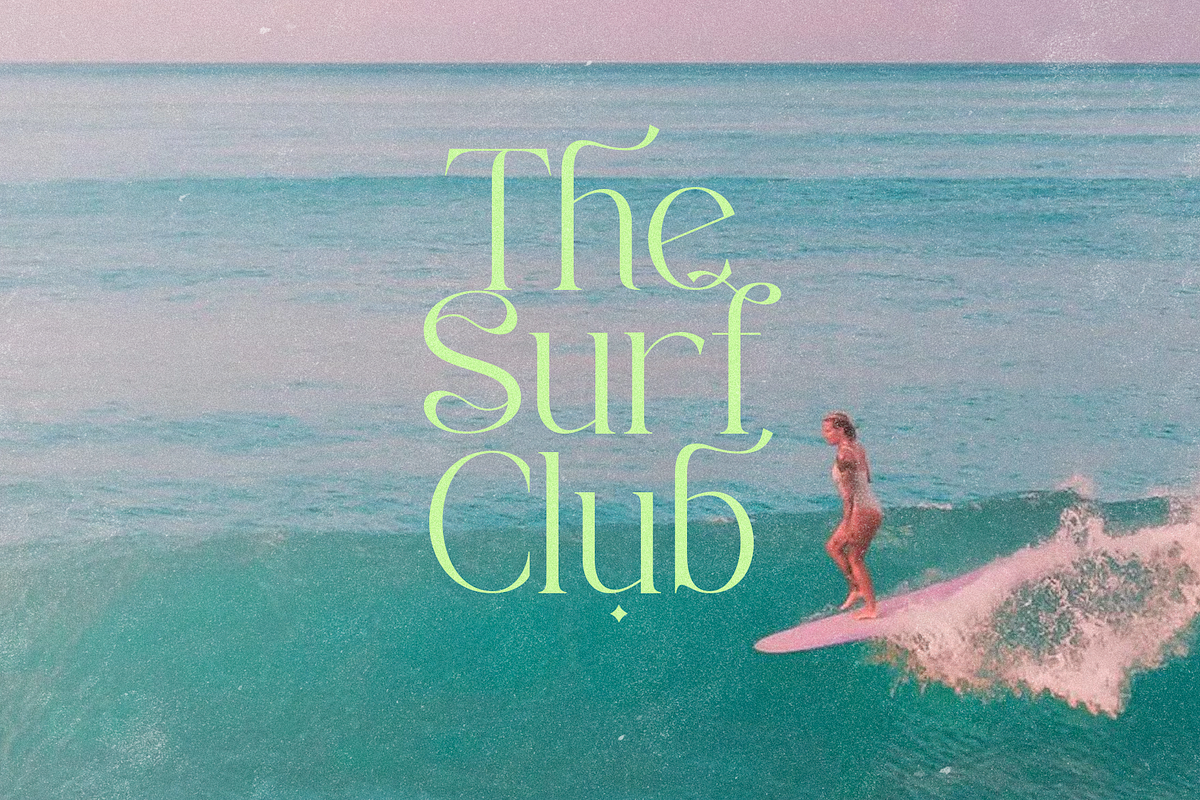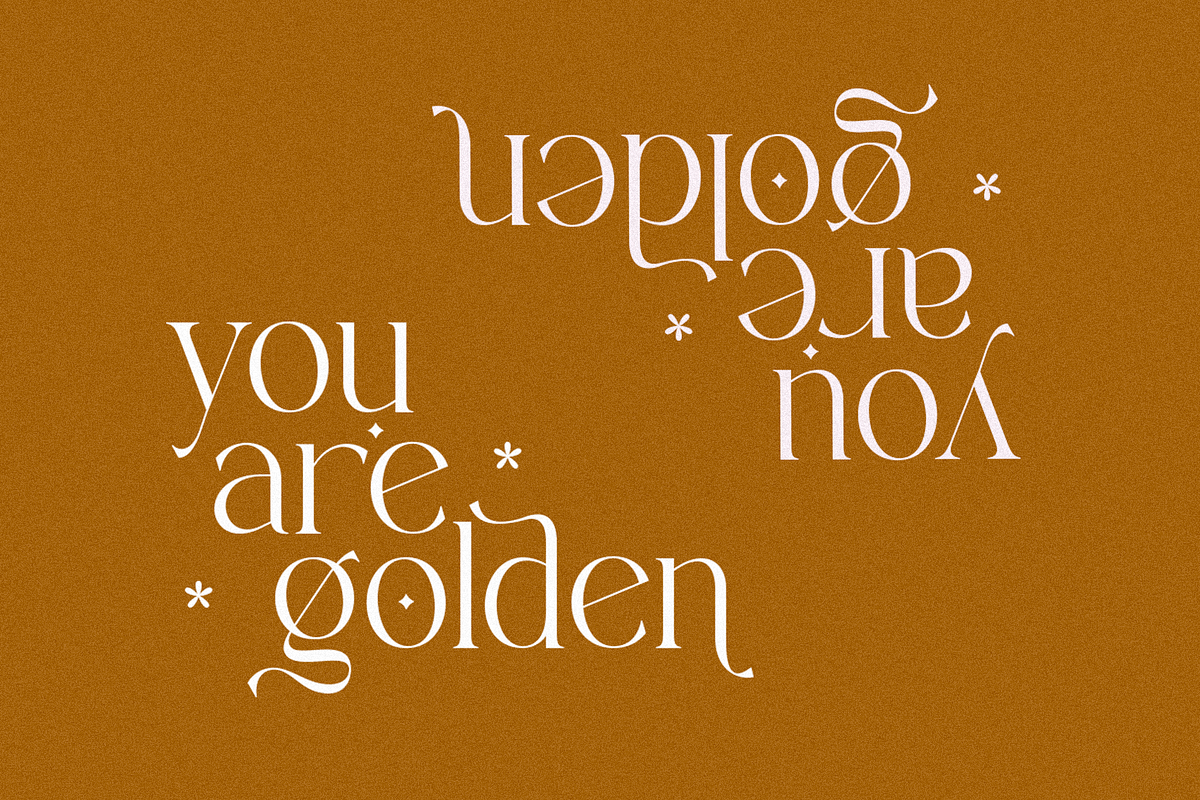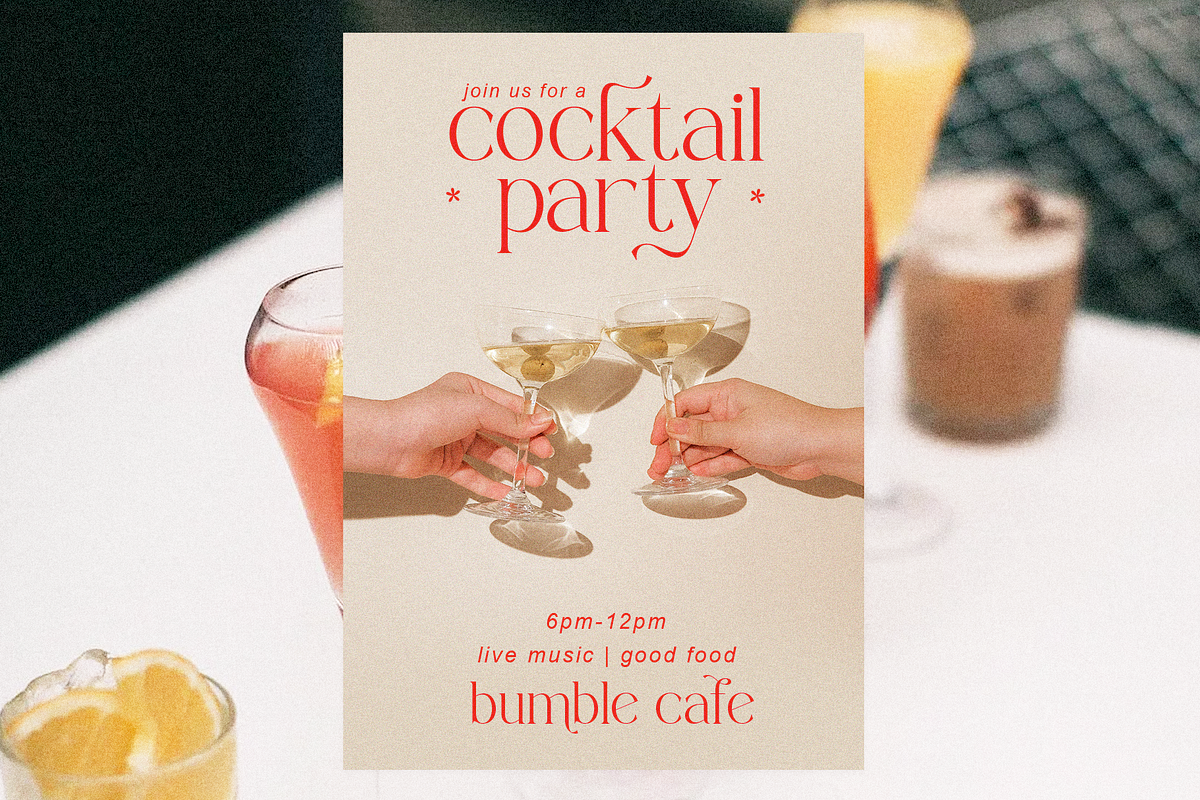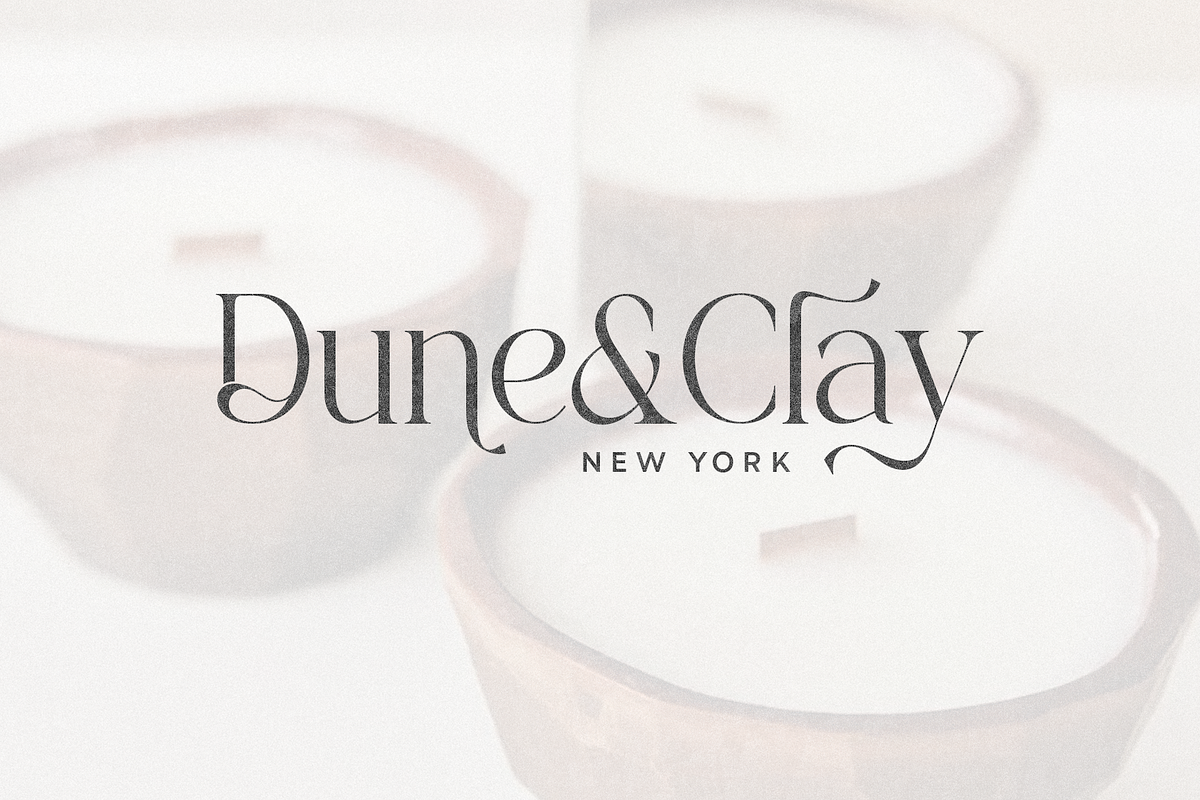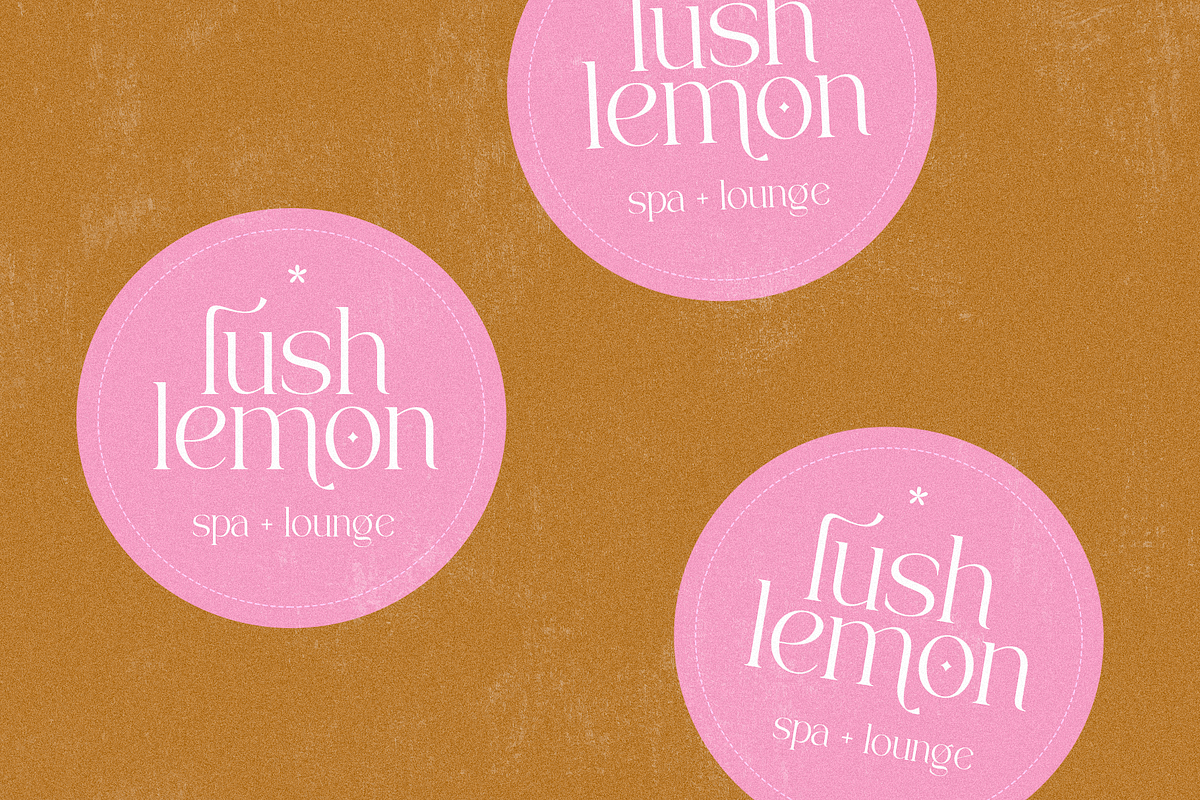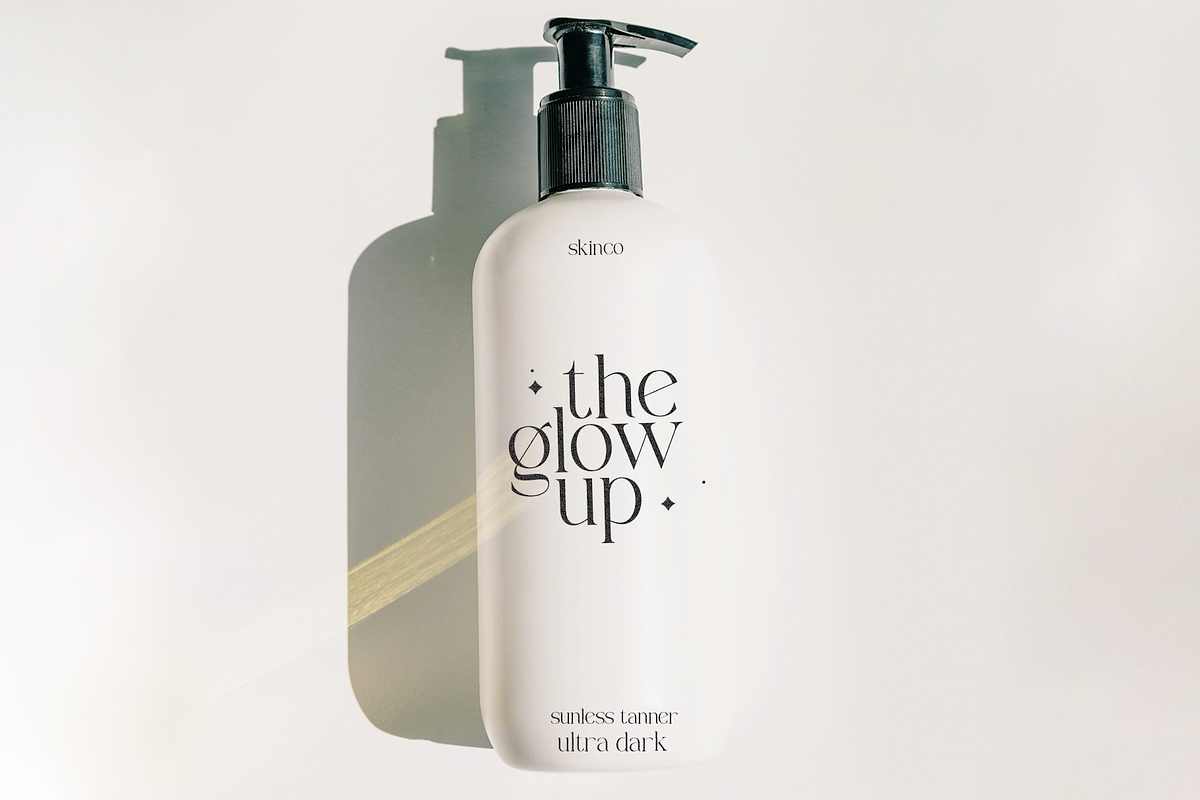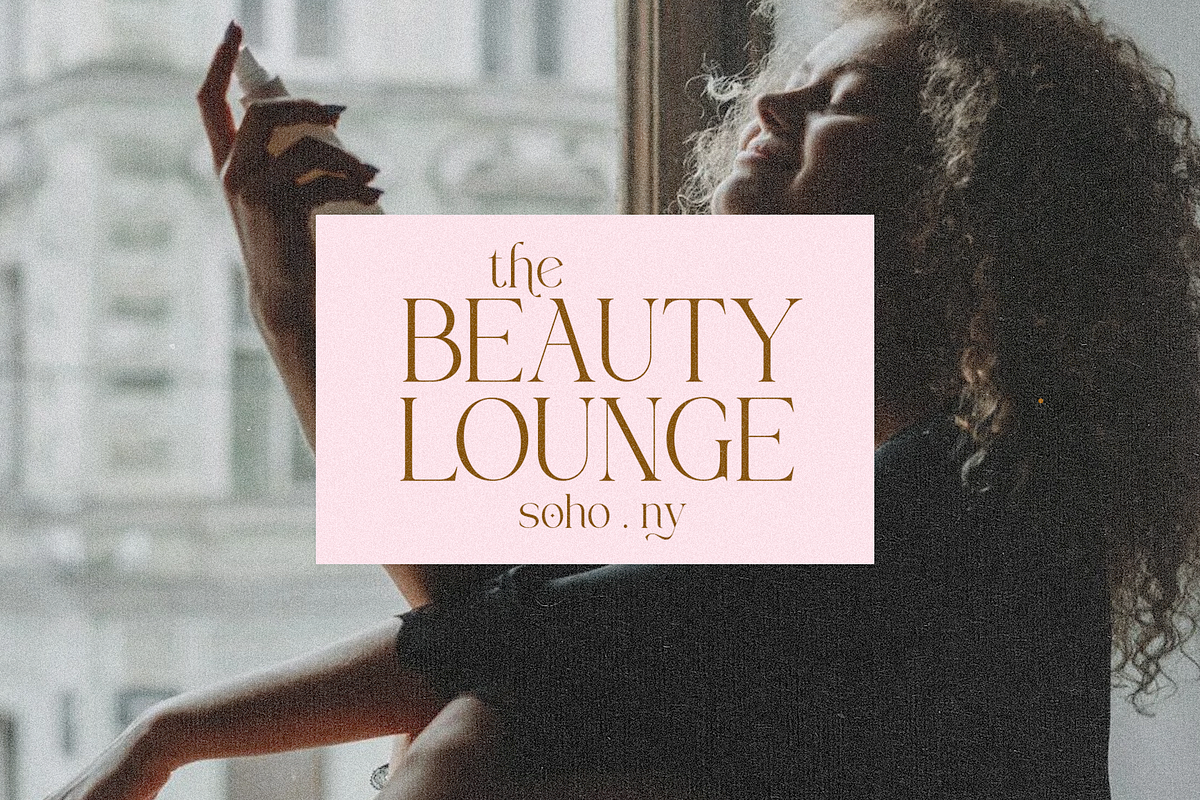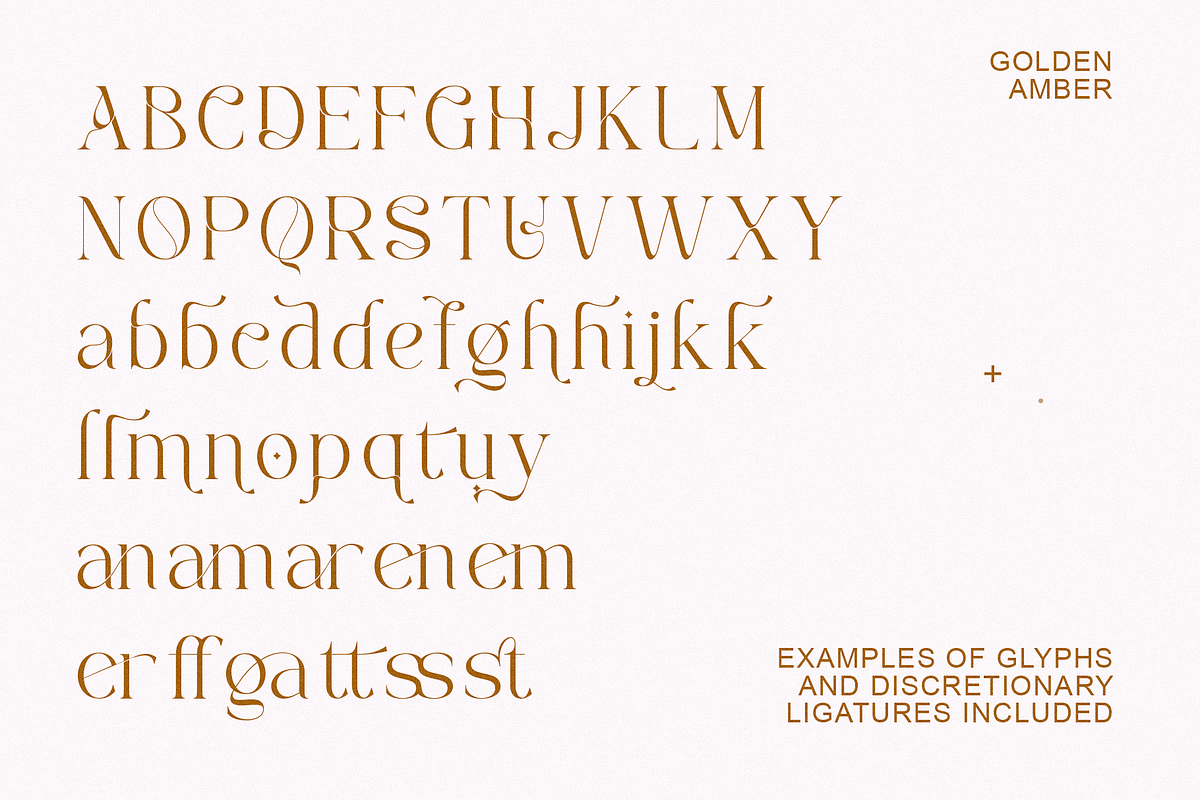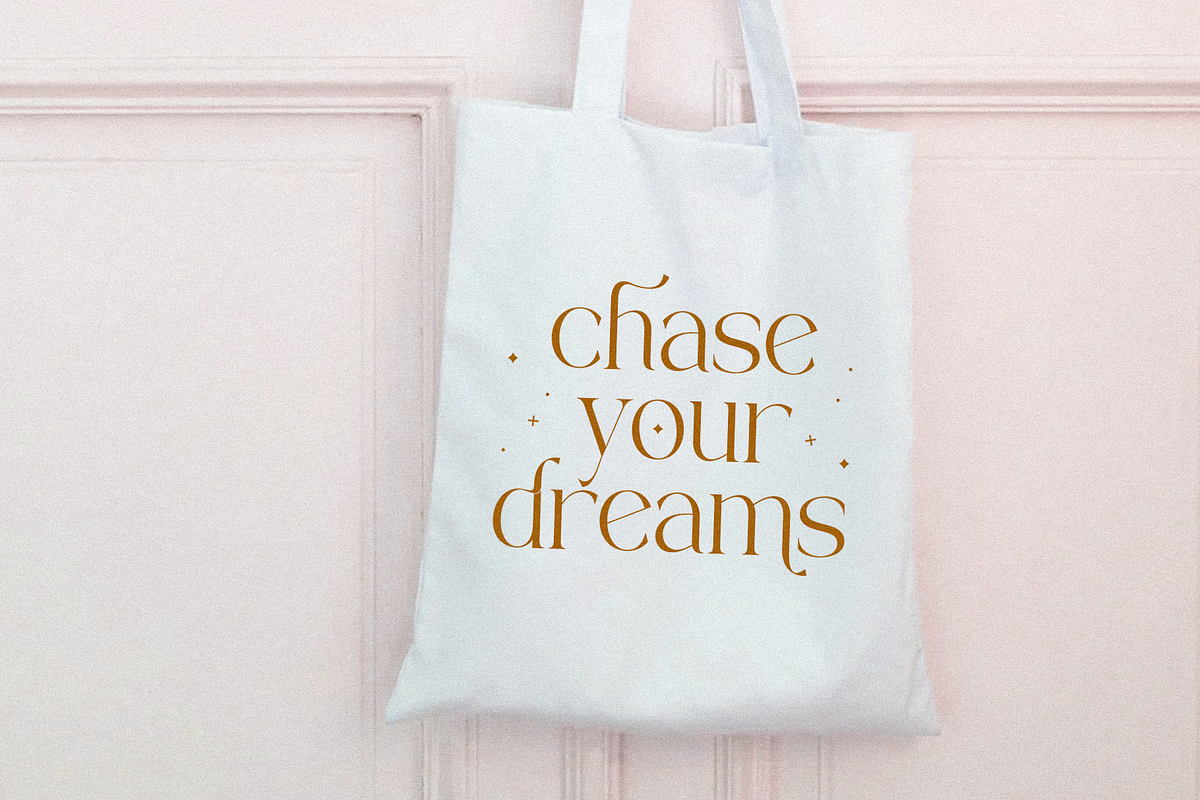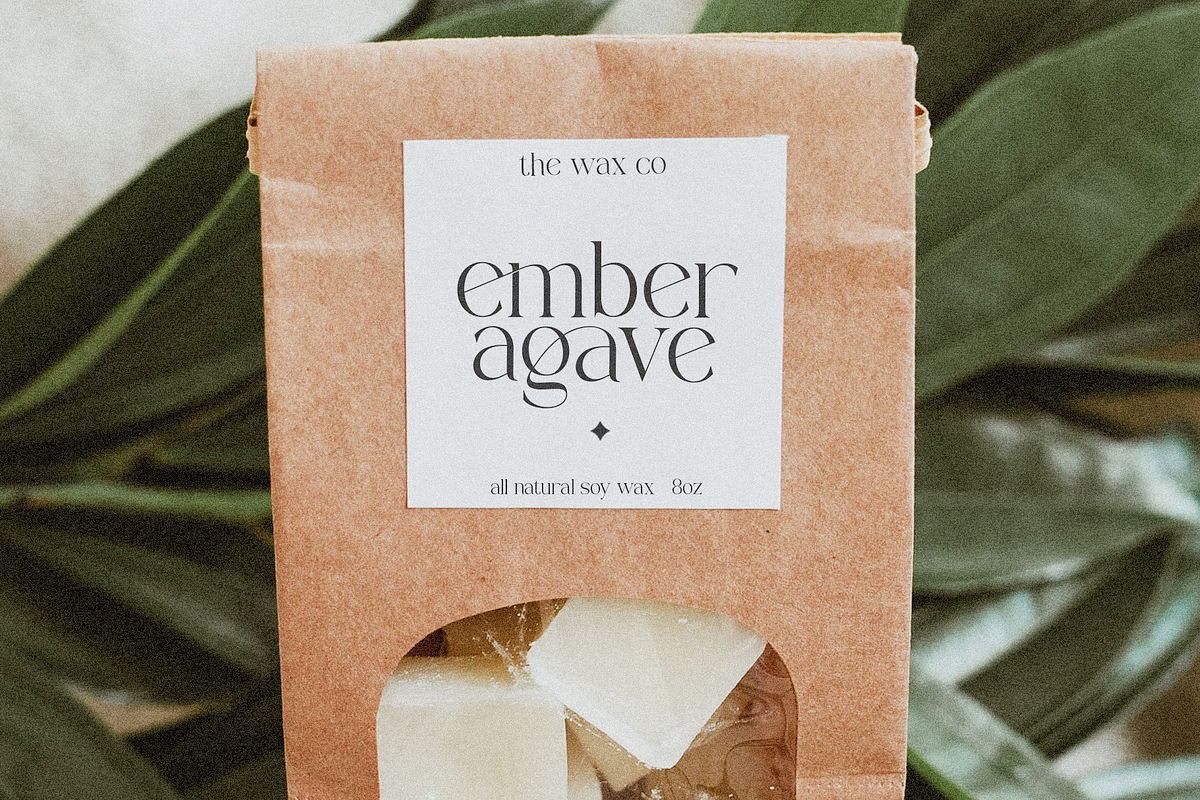
Golden Amber | Classy Serif Font
Golden Amber is a modern serif font. This font is unique - with just enough character to make your designs stand out!
This font is perfect for branding, logos, magazines, craft projects, svg designs, shirts, quotes and more!